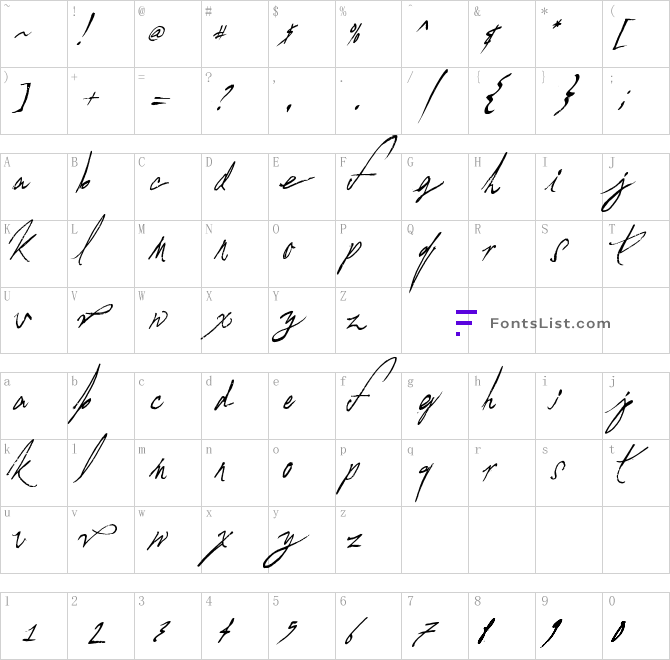
- Font Name:A Glitch In Time
A-Glitch-In-Time.ttf is a very beautiful artistic font, A-Glitch-In-Time.ttf is widely used in the design and printing of various books and pictures,A-Glitch-In-Time.ttf has a strong visual impact,A-Glitch-In-Time.ttf is a commonly used font in newspapers, magazines and books, and is used in posters, e-commerce Poster design, store design, logo design, font design and other fields.A-Glitch-In-Time.